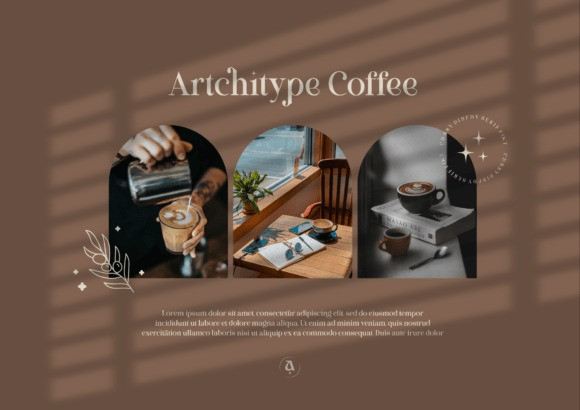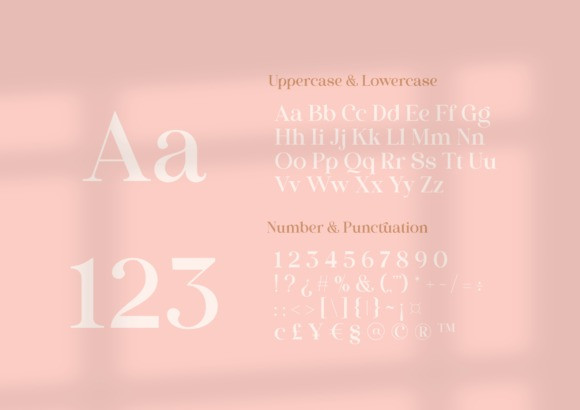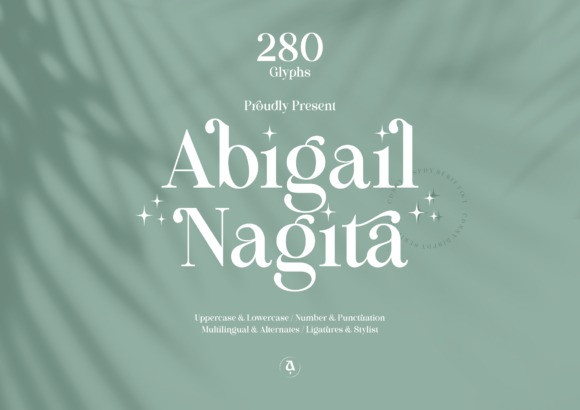
Abigail Nagita Font
Abigail Nagita Font is a stylish Font Style. This beautiful script font offers your personal touch to your latest art project with an elegant, classy, and modern look.